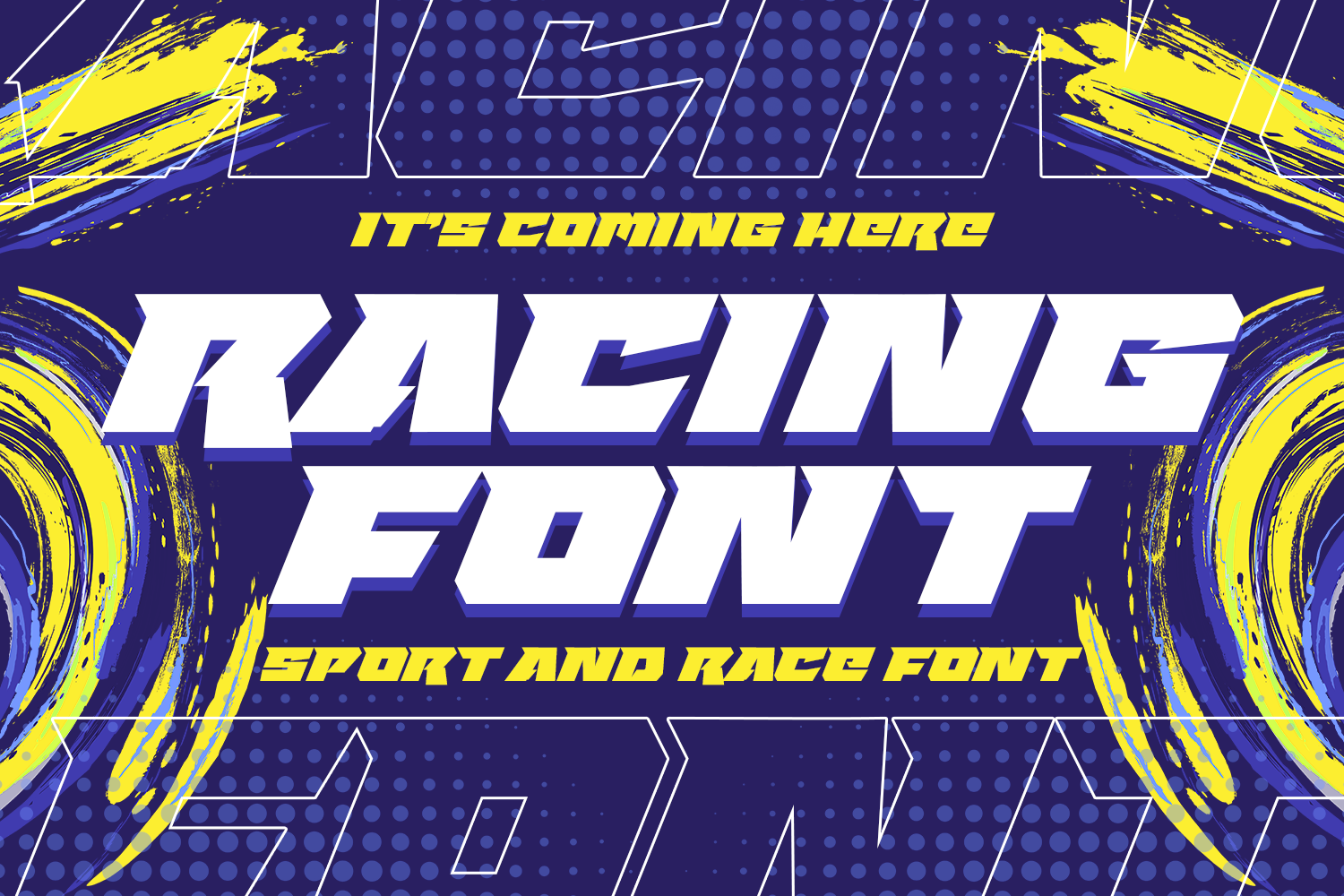
Racing Font – Sport and Racing Font
Racing Font is a bold, powerful, and dynamic display typeface inspired by the world of motorsports, racing events, esports, and modern sports branding. Designed with sharp angles, strong geometric shapes, and a high-speed aesthetic, this font delivers an energetic and competitive feel to every design. This font is perfect for creating eye-catching designs that demand attention and convey speed, strength, and performance. Whether you're working on professional branding or personal creative projects, Racing Font provides a modern and impactful look that stands out.